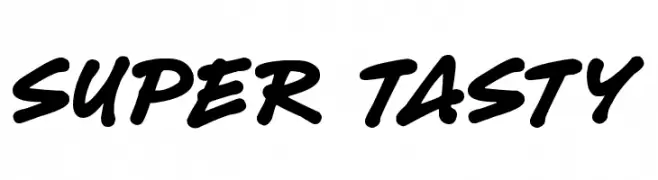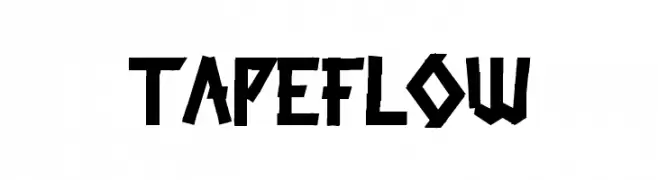
A modern, narrow font with sleek, elongated characters.
A bold, angular font with a geometric, stencil-like design.
A playful font with heart motifs, perfect for romantic and whimsical designs.
A bold, runic-inspired font with sharp angles and geometric shapes.
A bold, geometric font with sharp angles and a modern cut-out effect.
A playful, bold, and italic font with a bubbly, cartoonish style.
A bold, playful script font with a dynamic and energetic style.